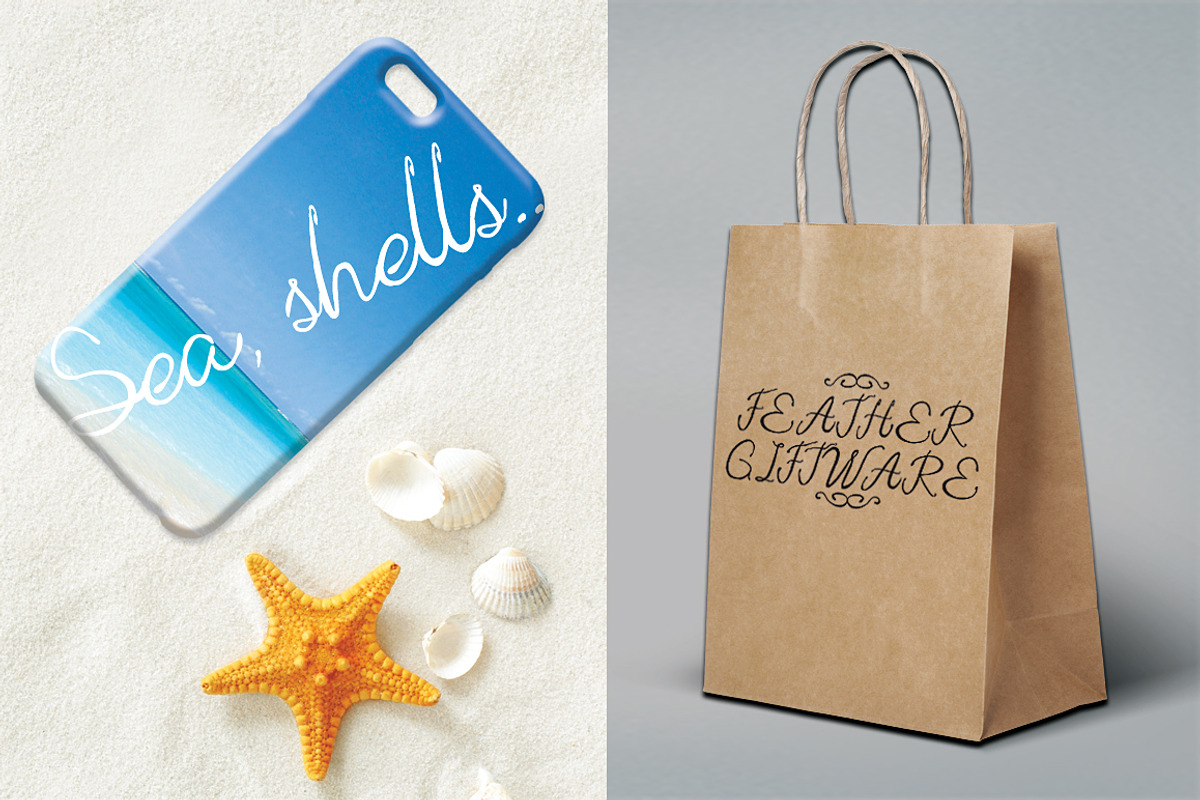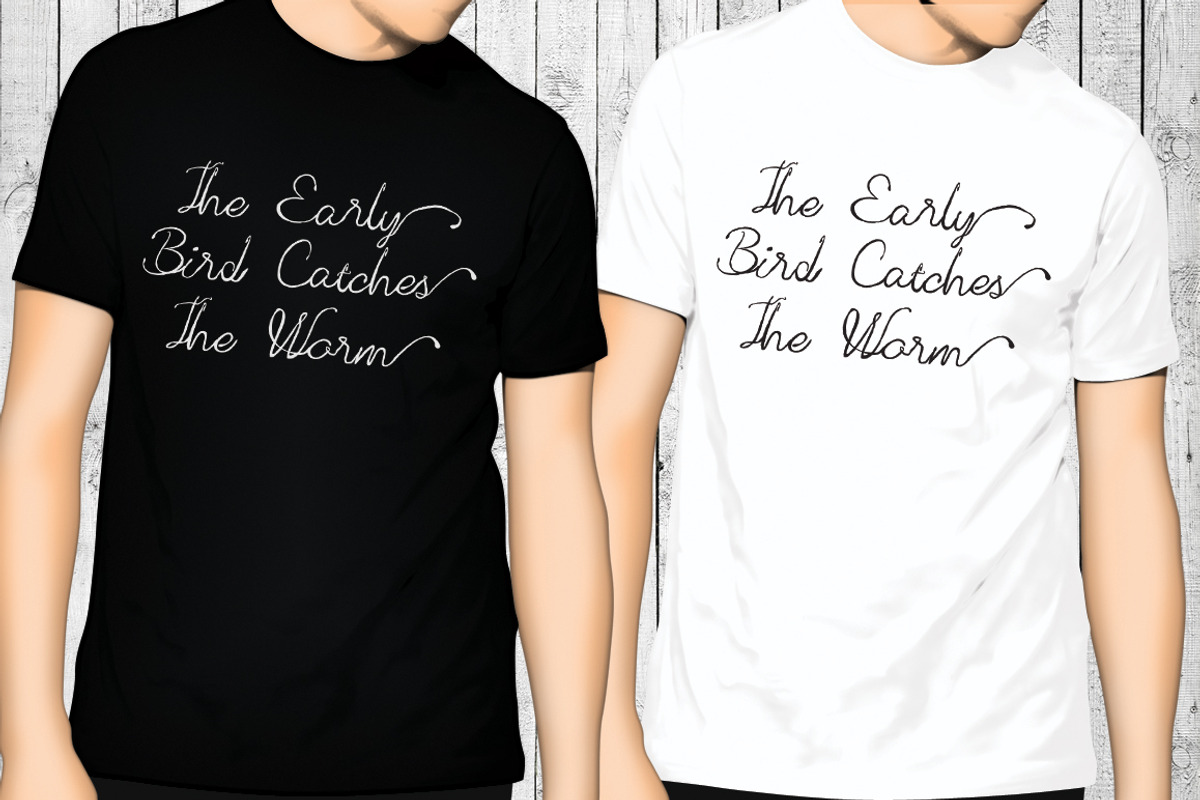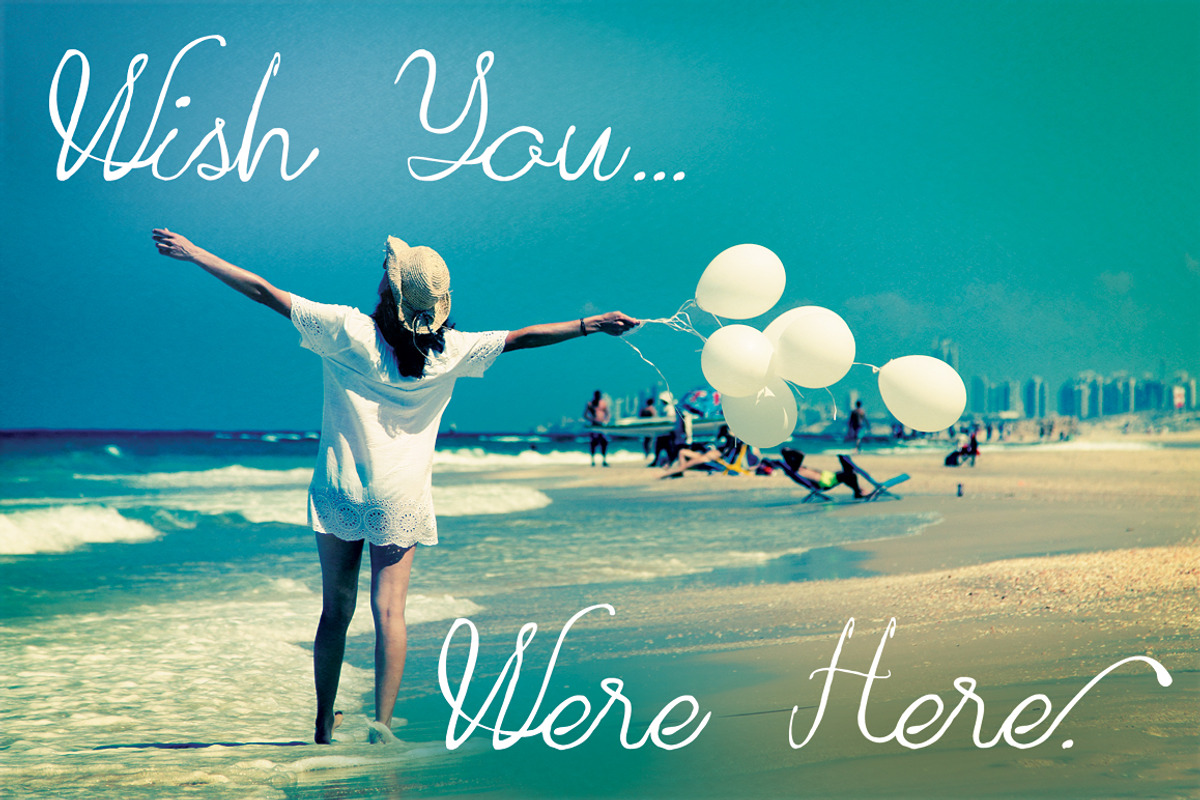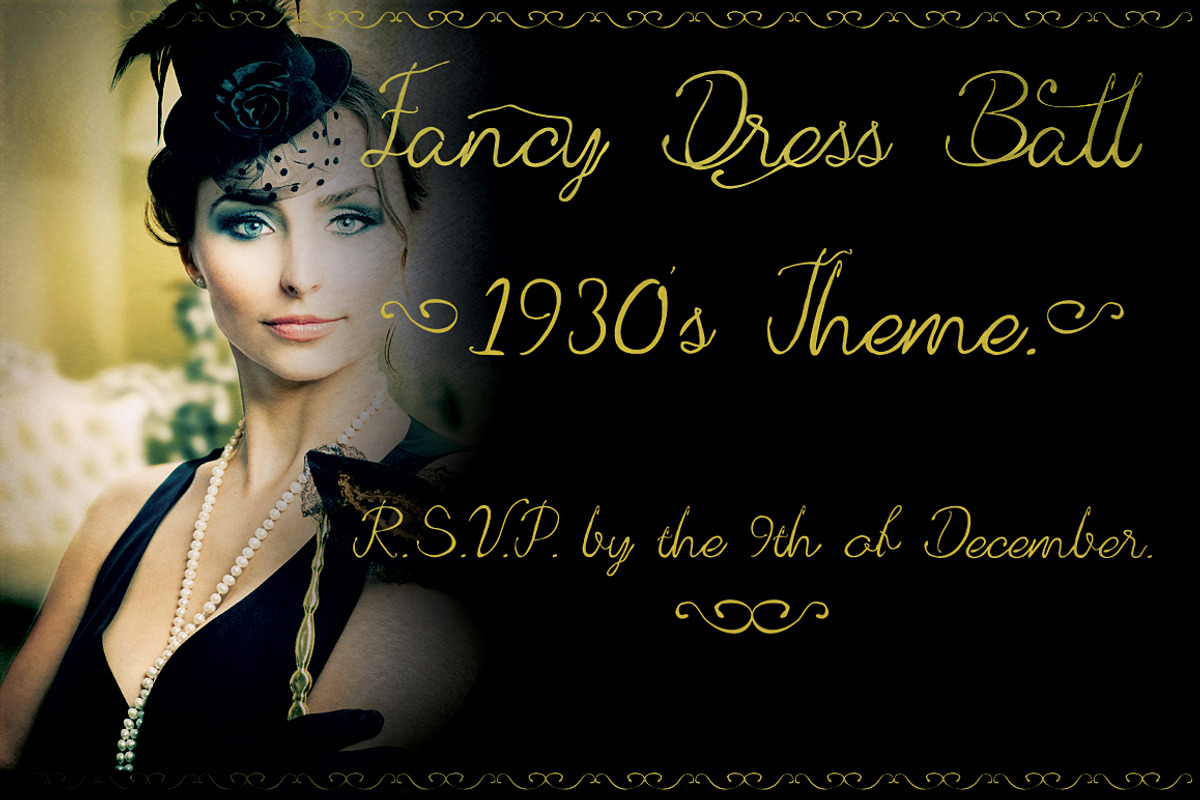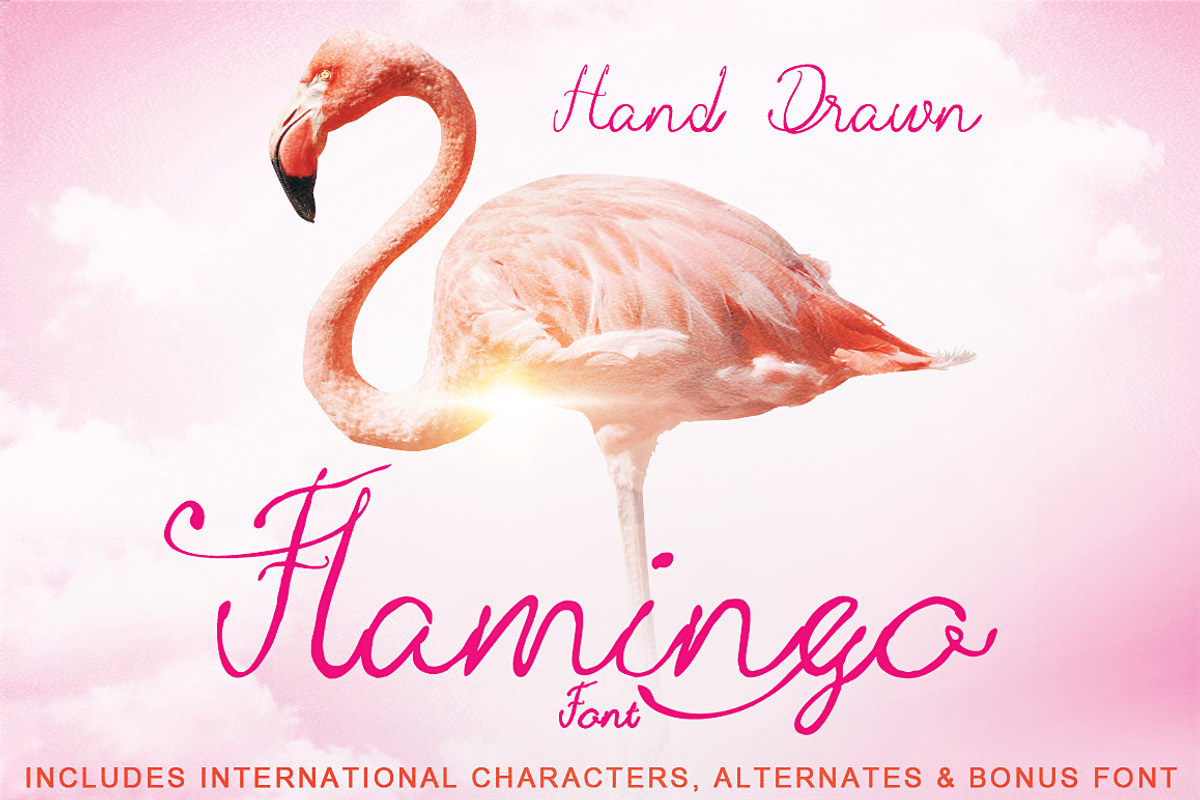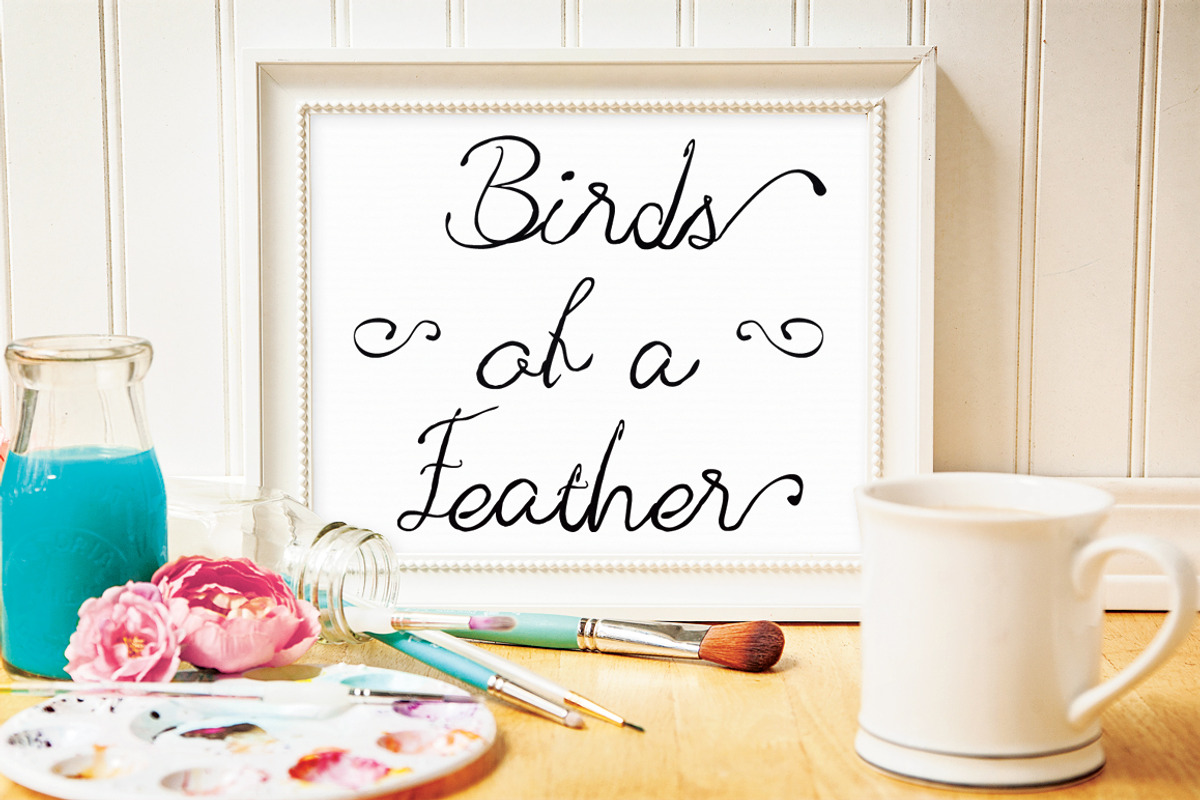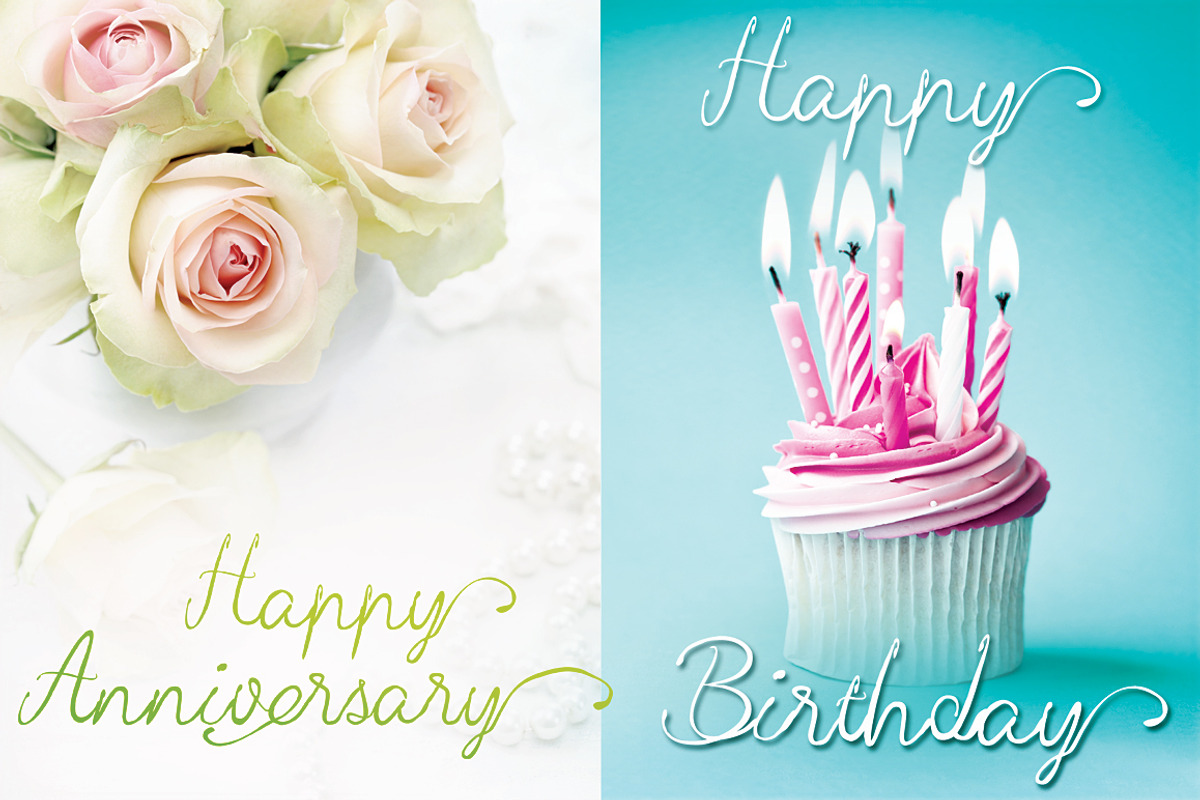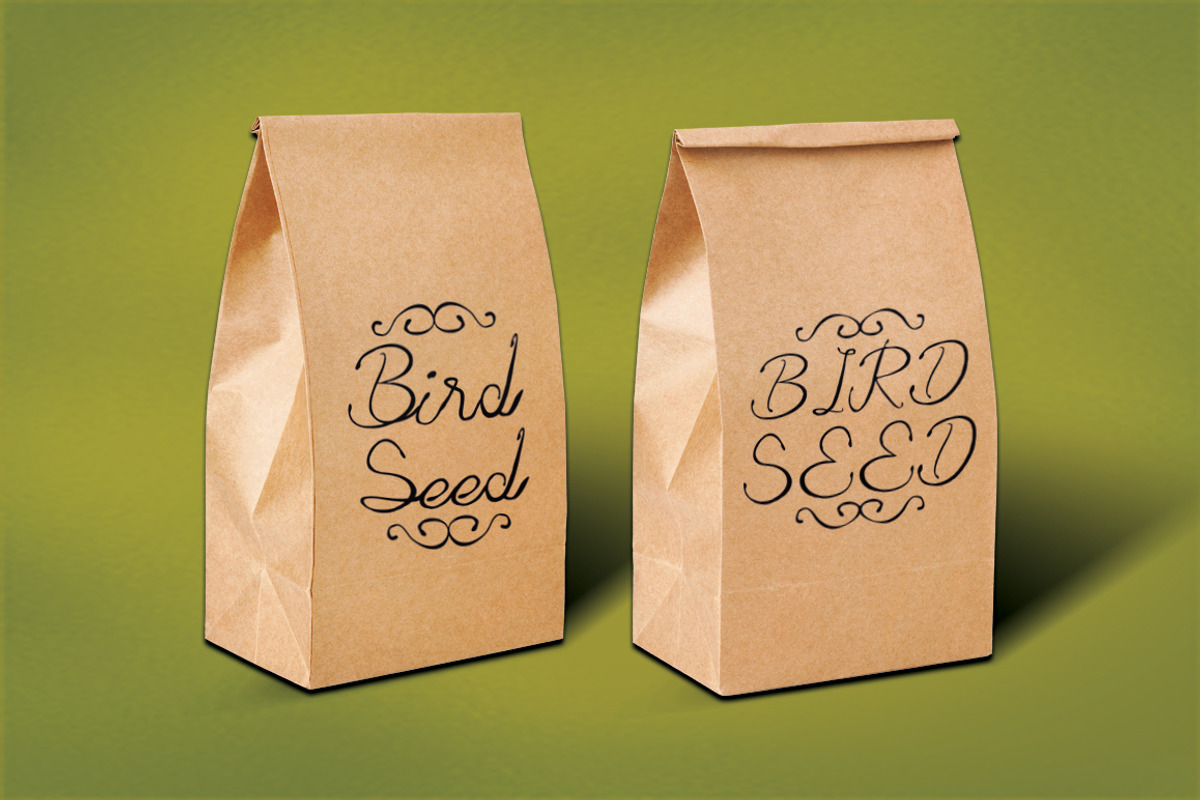
Hand Drawn Flamingo Font
Hand Drawn Flamingo Font by tmcom is a font selected for branding, posters, packaging, typography.
- 14 bonus or additional glyph's included, and can be used for separators, borders and visual affects.
- International capital characters, come in normal and swashed, (when viable) formats.
- All lowercase letters have raised and swashed formats, (26 raised, and 104 swashed).
- High attention to detail and quality; and l have even made the swashed, (or extended) font characters as compatible as possible with related
Hand Drawn Flamingo Font by tmcom fits naturally into Branding, posters, packaging, typography.